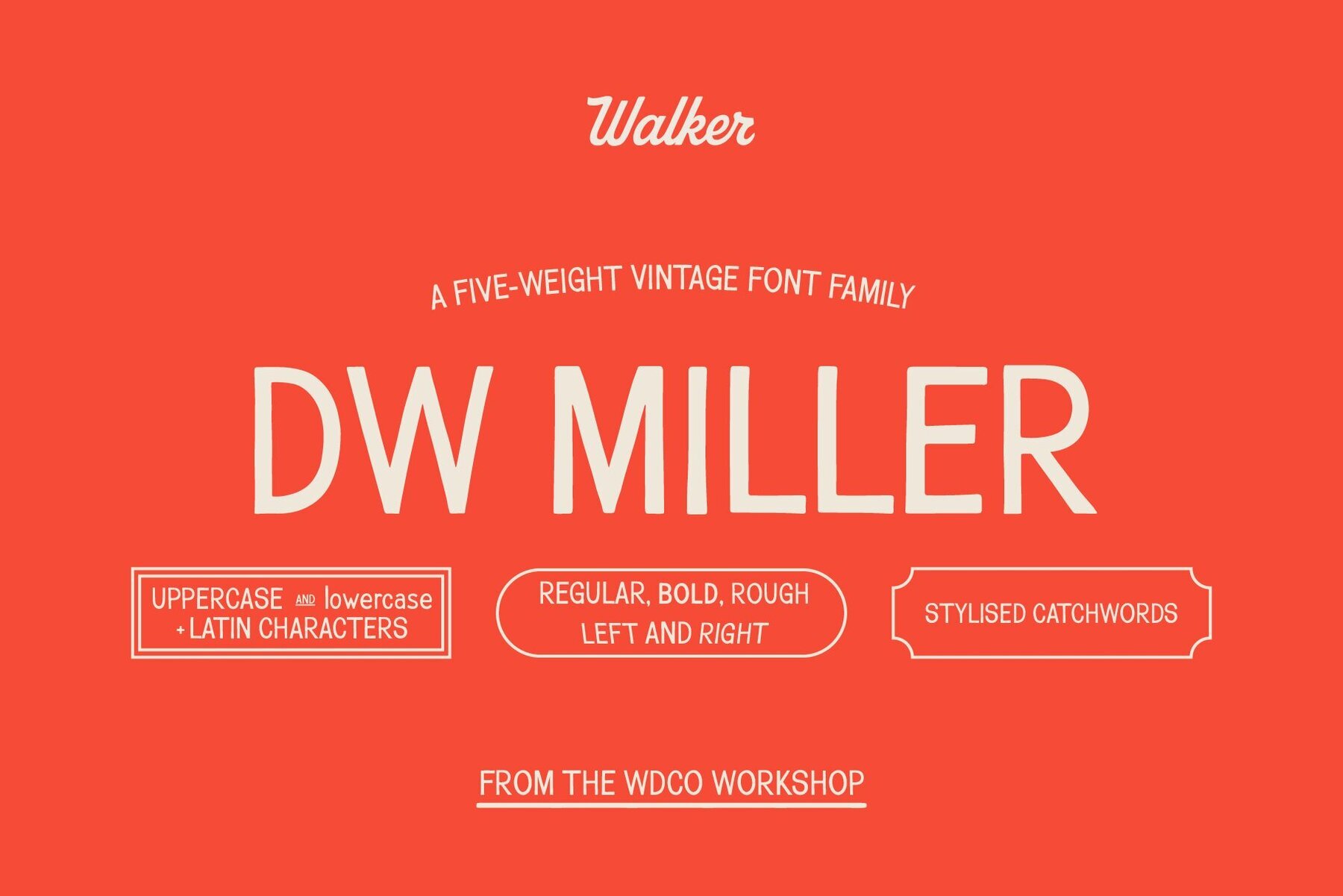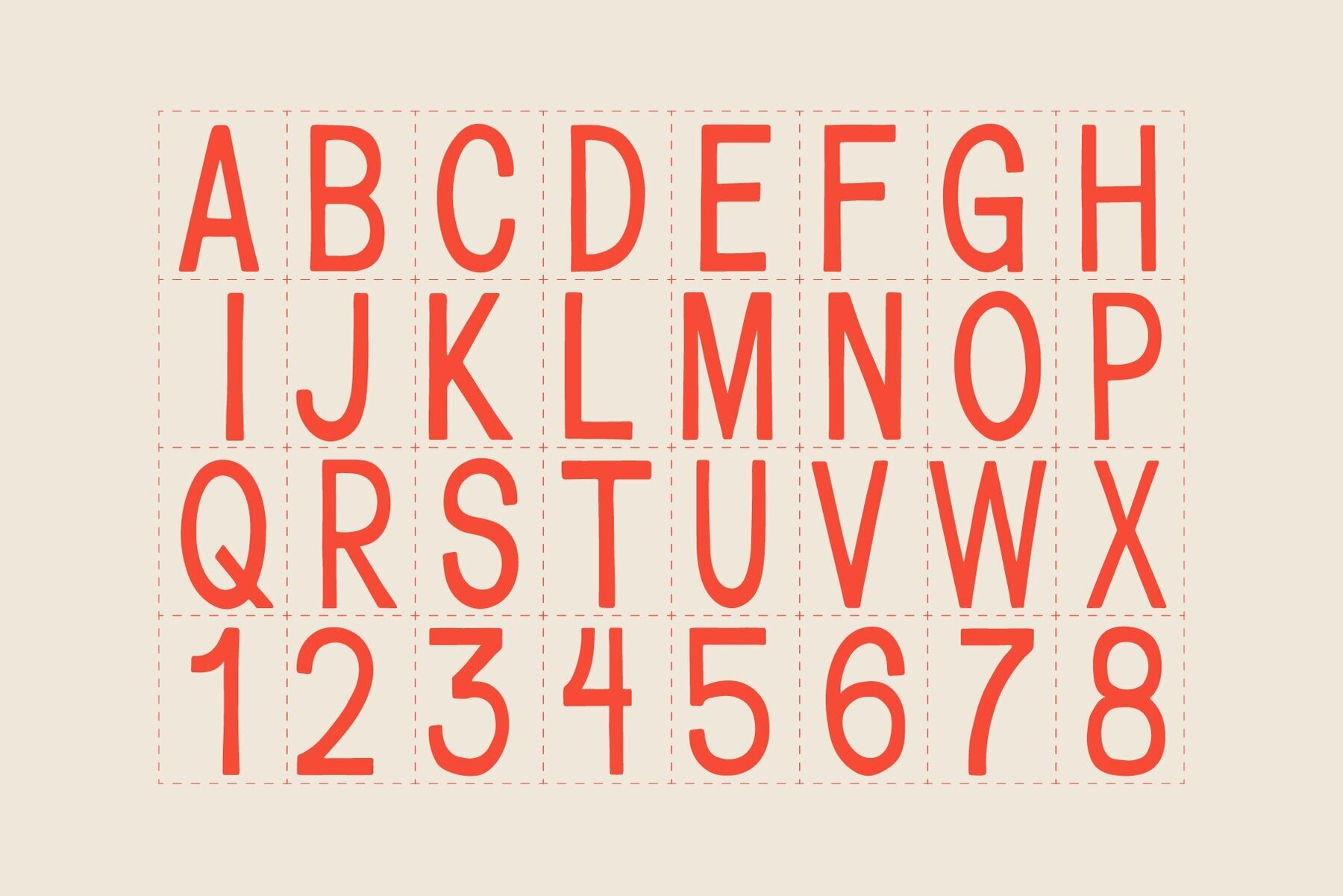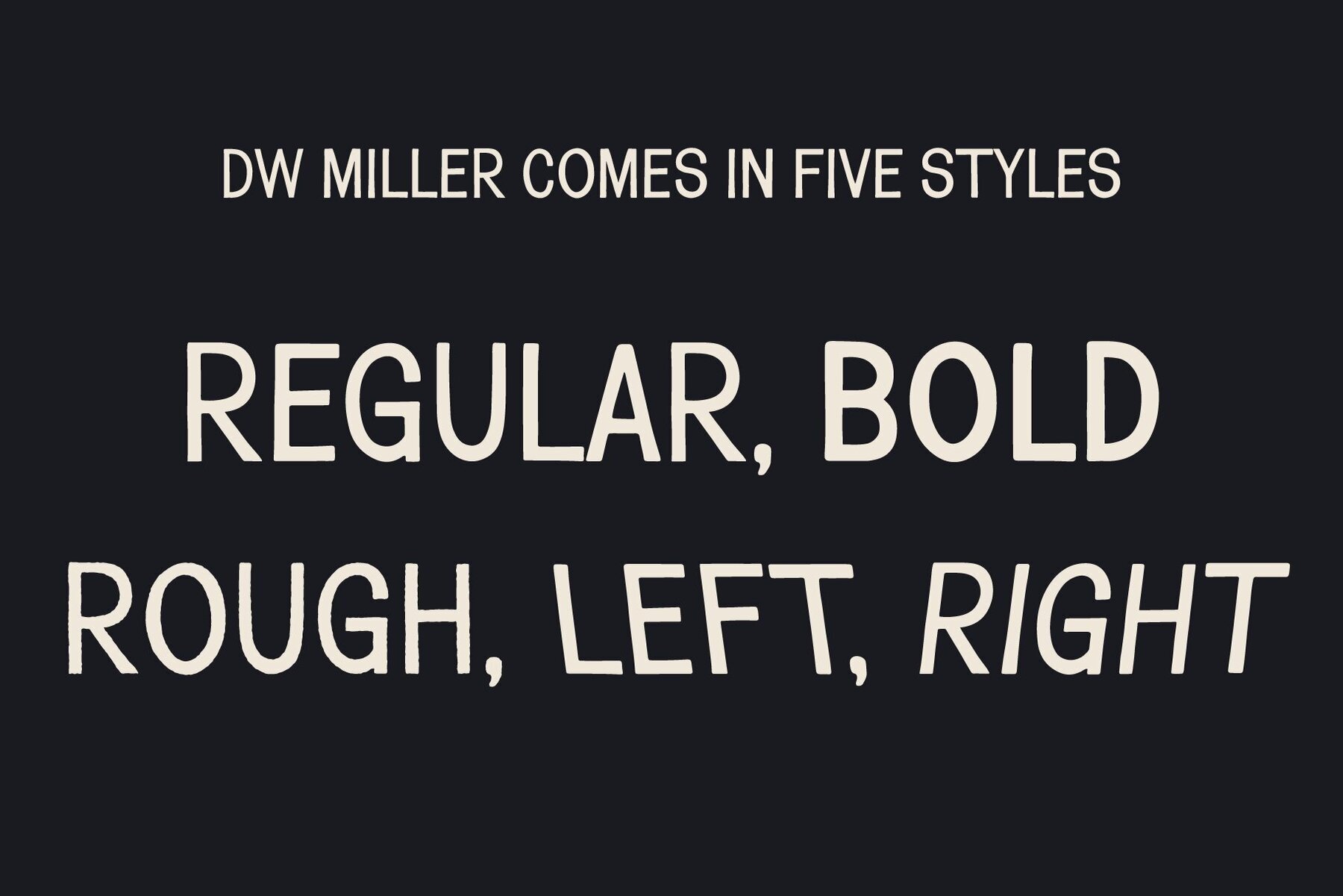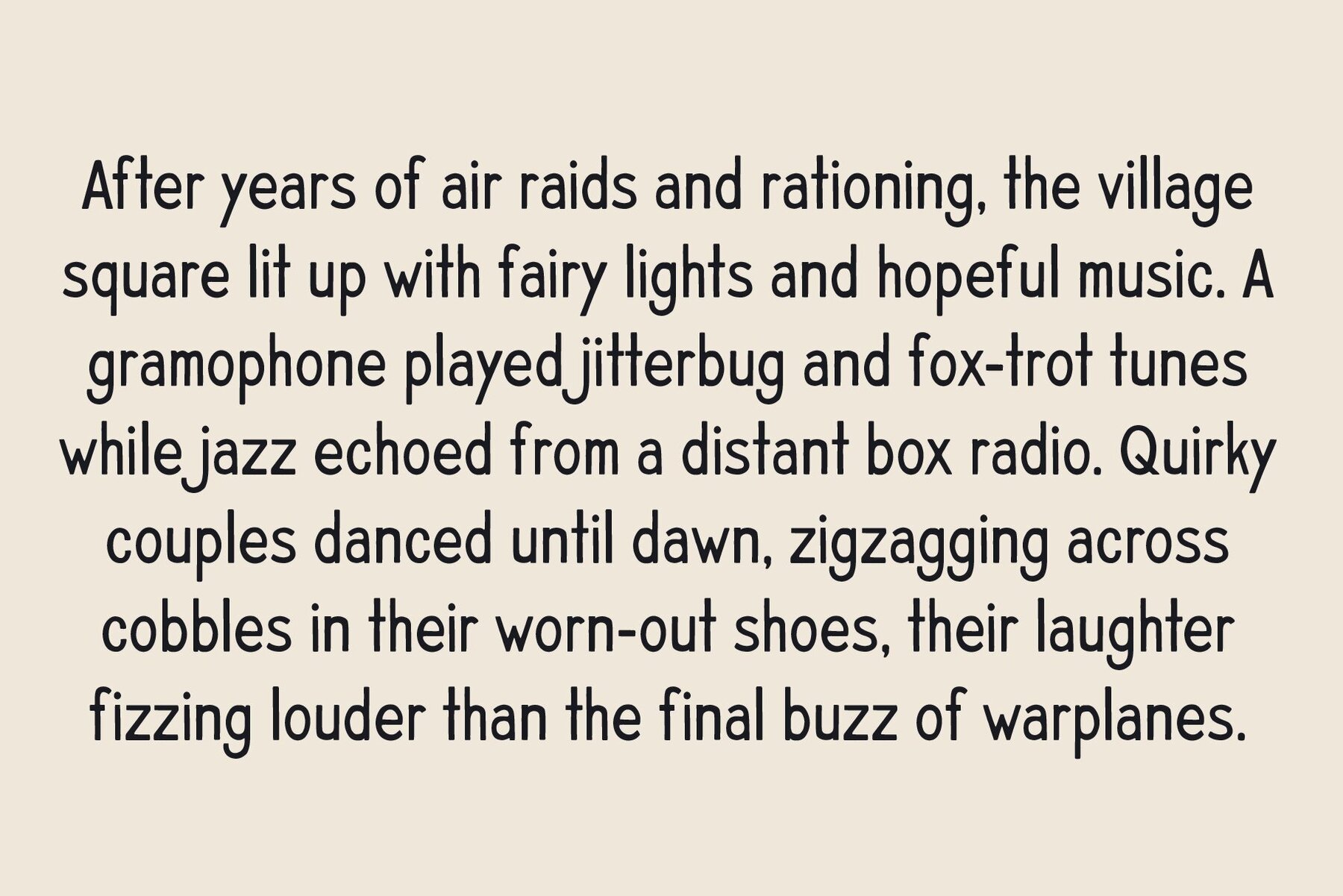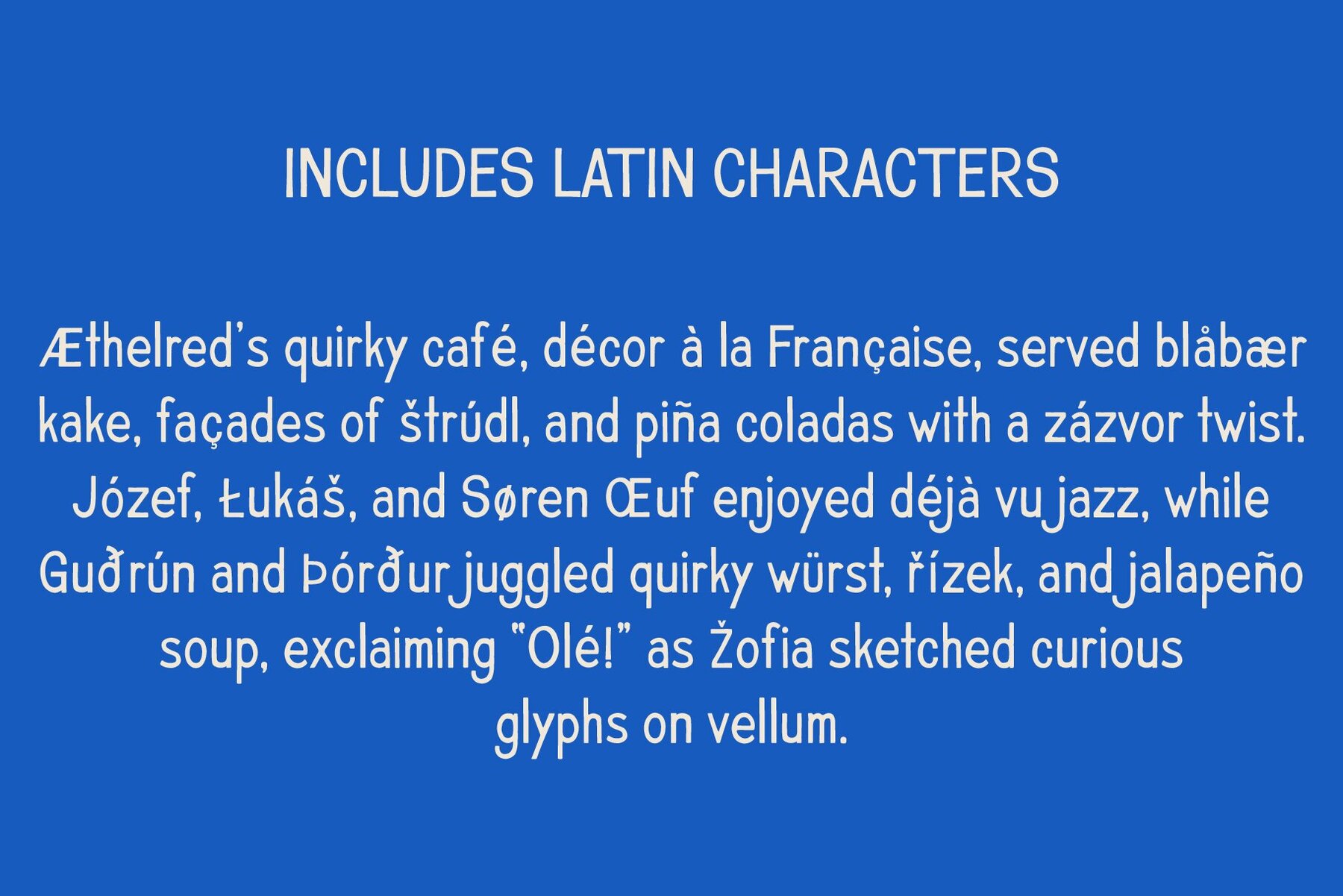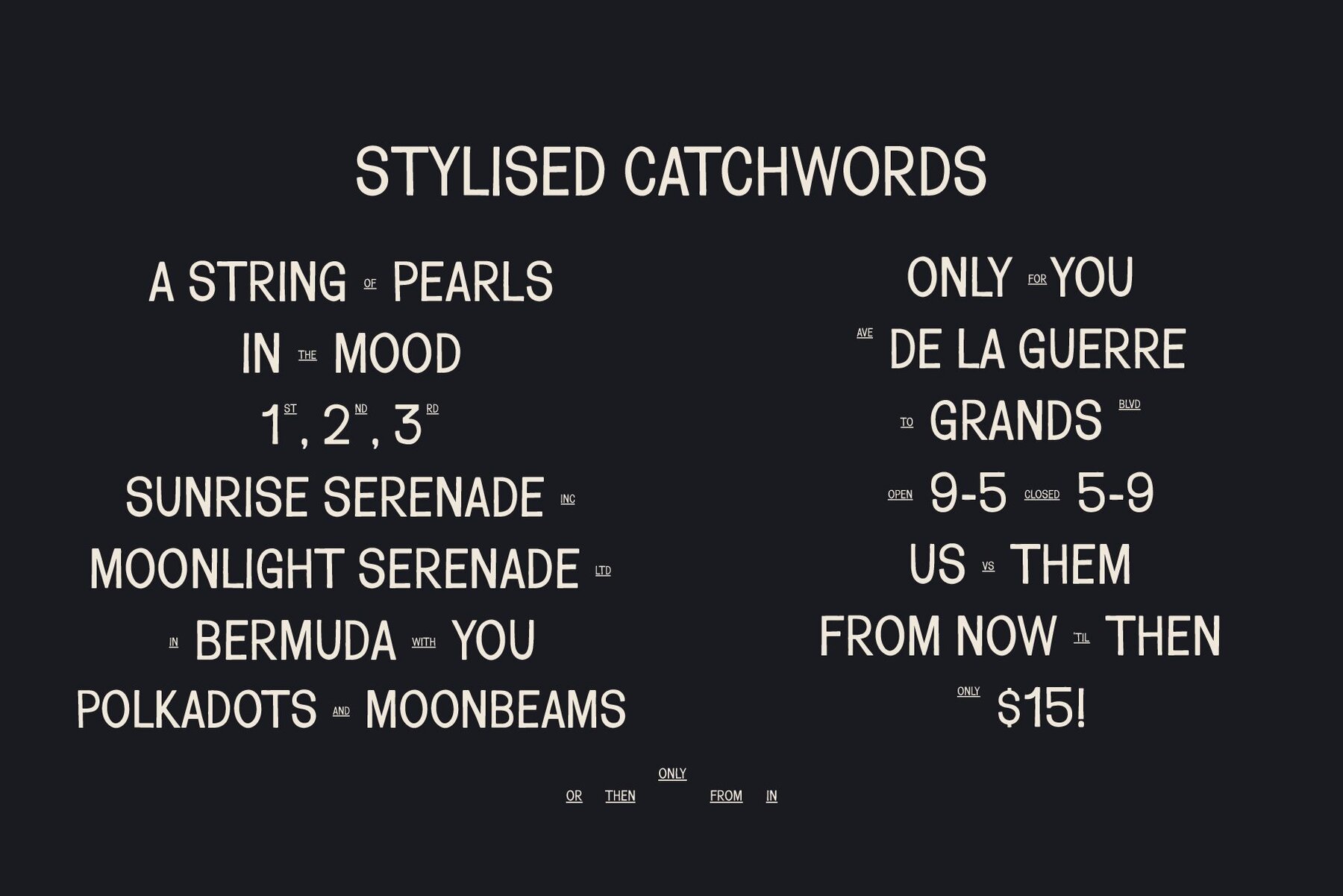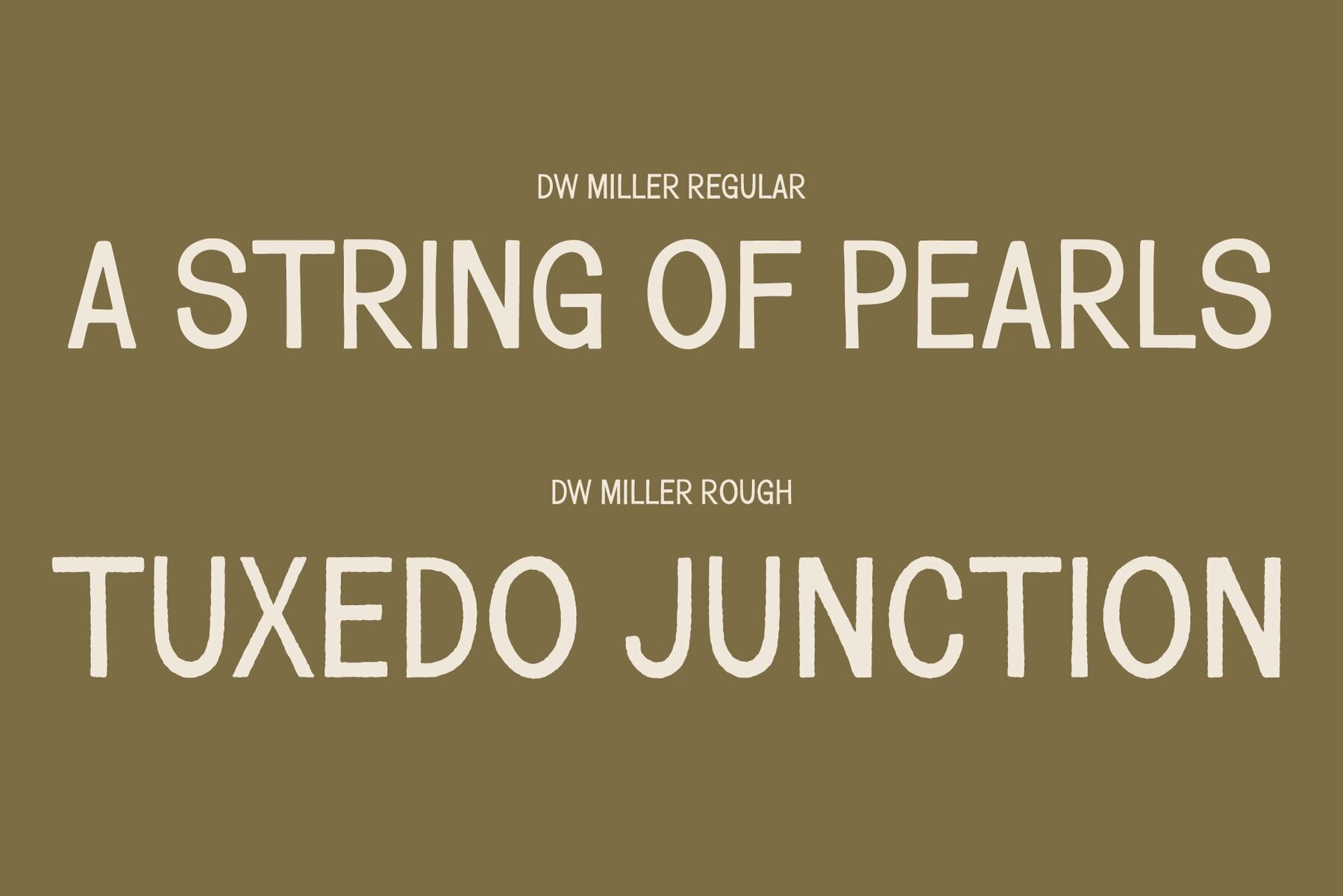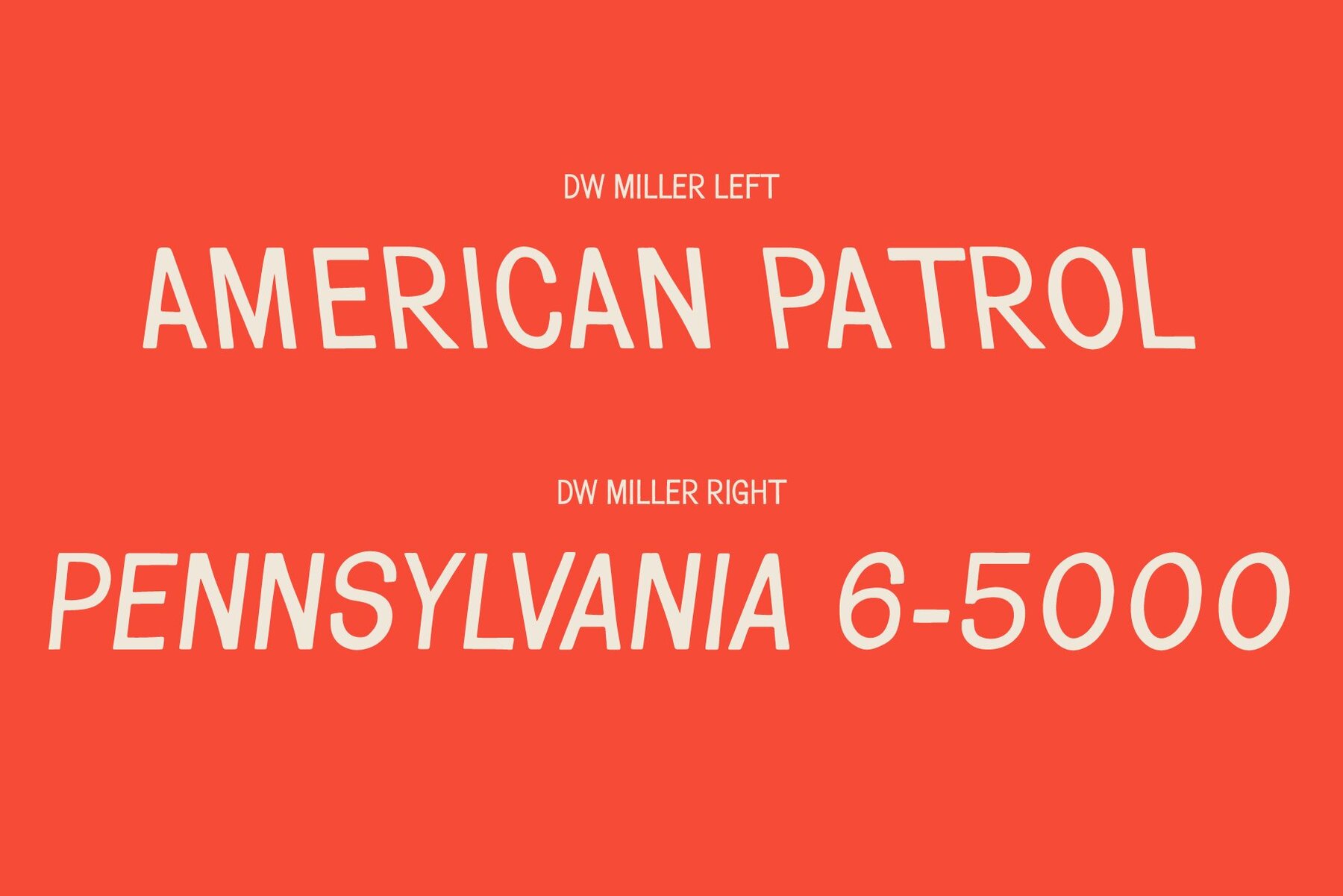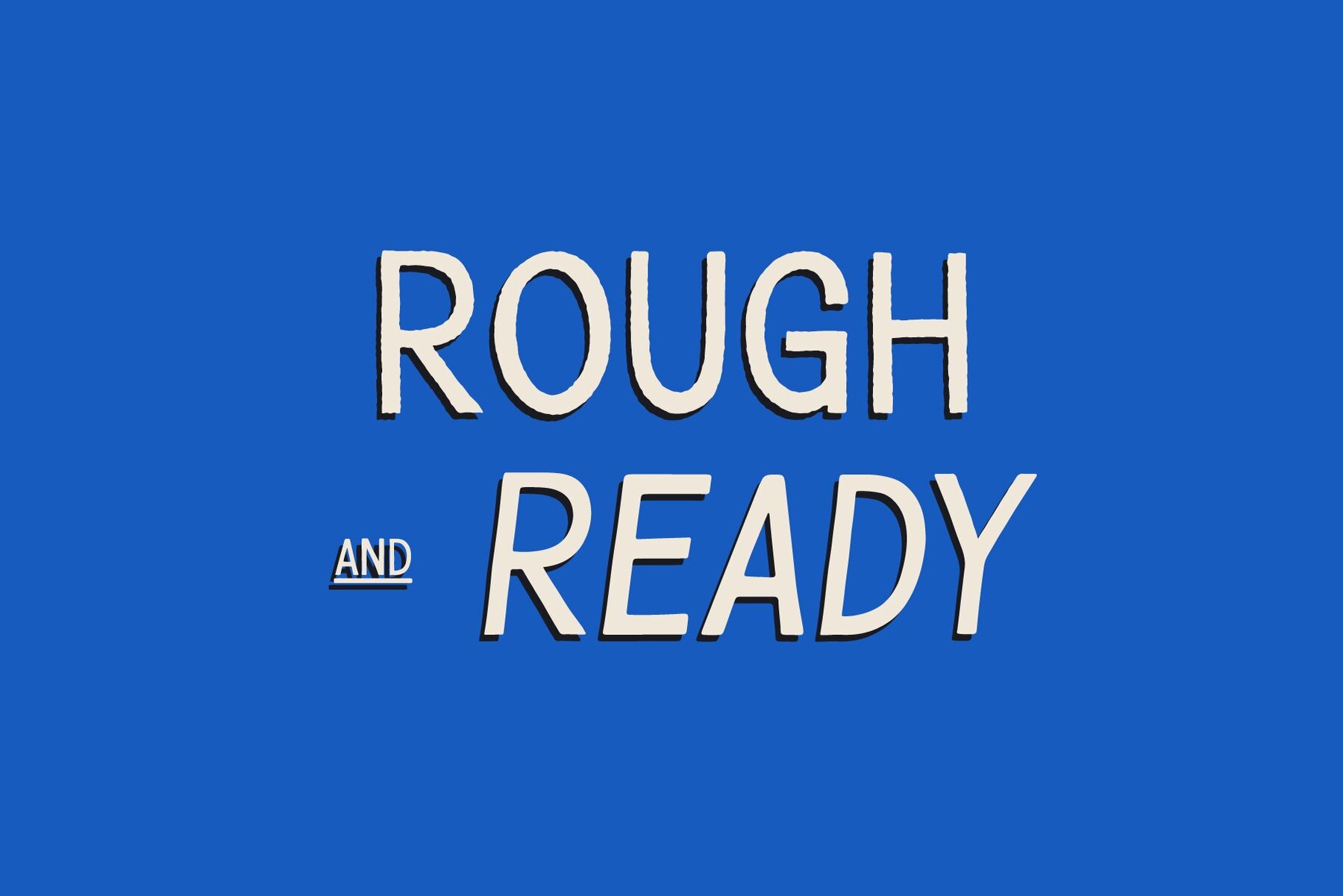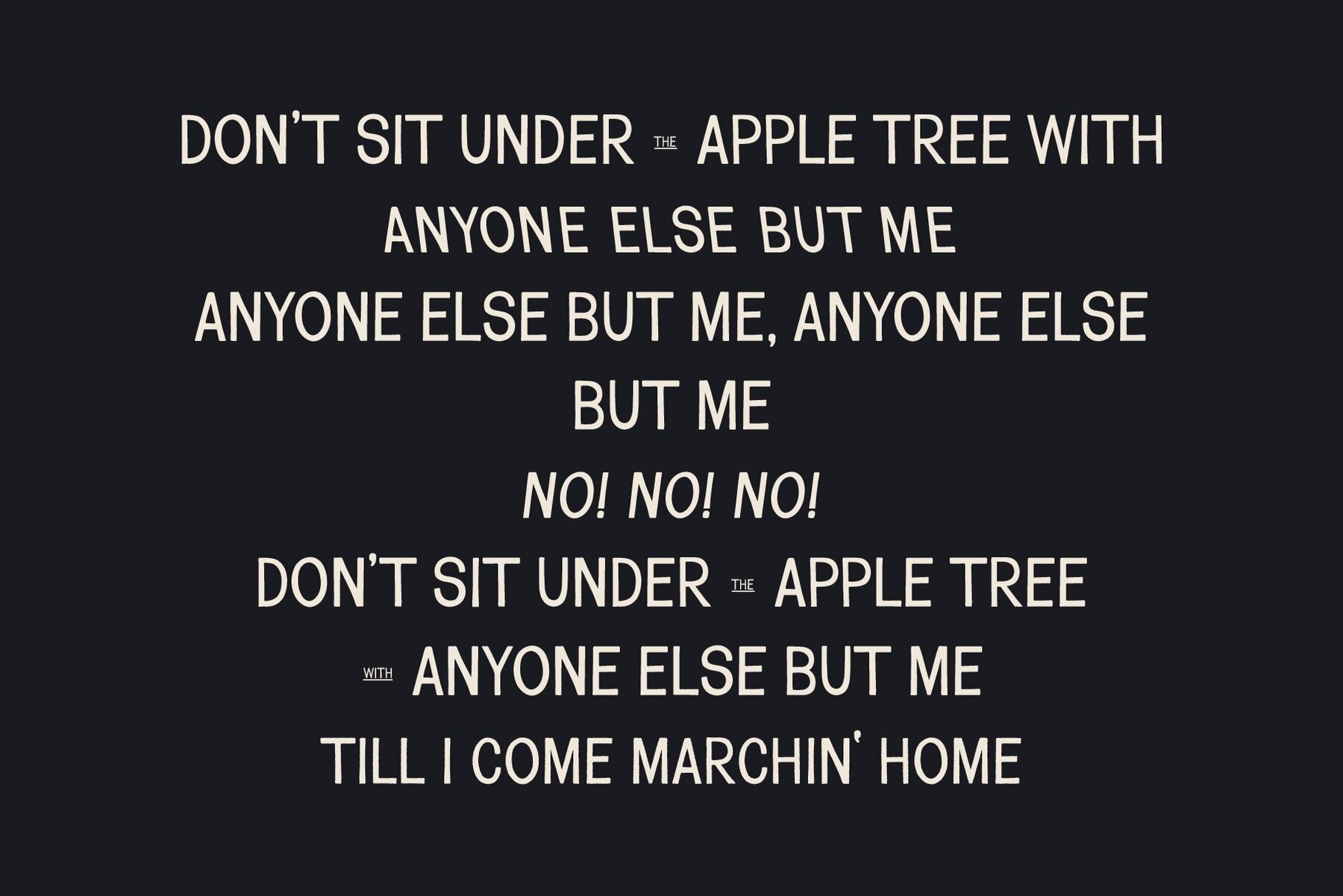
DW Miller Font
DW Miller is the seventh font released by WDCO, embodying a robust design sensibility that harks back to the spirited post-war era of the late 1940s. Characterized as both utilitarian and stylish, this Sans Serif variant offers a remarkable range of five styles: Regular, Bold, Rough, Left, and Right. Each style features both uppercase and lowercase forms, complemented by Latin characters and a selection of discretionary glyphs and stylized catchwords. With nearly 1,500 glyphs and 288 glyphs per style, DW Miller is an extensive and dynamic typeface, resonating with creative freedoms and practical applications. Its vigorous curves and bold forms echo the rhythms of jazz clubs and the industrious energy of vintage cityscapes. This font is particularly appealing for those working on projects that range from heritage-inspired clothing branding to packaging that reflects mid-century craftsmanship.DW Miller: A Mid-Century Inspired Sans Serif
DW Miller serves as an essential asset for designers seeking to imbue their work with historical nuance and modern vigor.